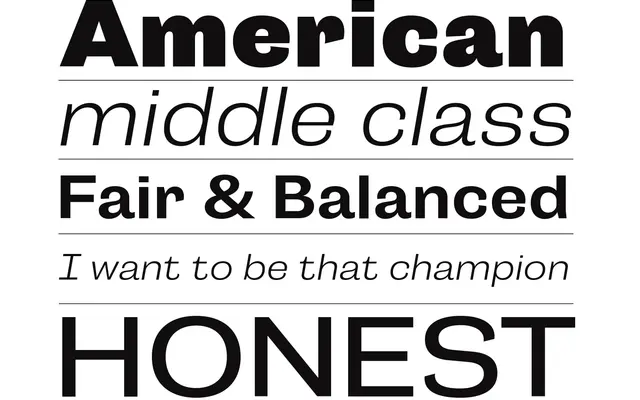
Campaign
A six-weight grotesque from PS Type Lab that finds its voice through deliberate weight and stout proportions rather than refinement.
Campaign is PS Type Lab's sixth family release, entering the crowded grotesque territory with a deliberate emphasis on chunky proportions and solid body structure. Six weights run from Thin to Black, each paired with a matching oblique, giving the family a full range for editorial and display use. Condensed and compressed widths, along with a stencil variant, are planned as future additions.
The foundry explicitly describes Campaign as operating within the grotesque genre, distinguished by stout proportions and a chunky body structure rather than geometric or humanist tendencies.